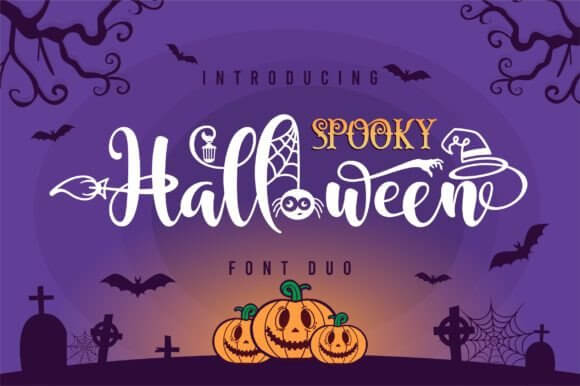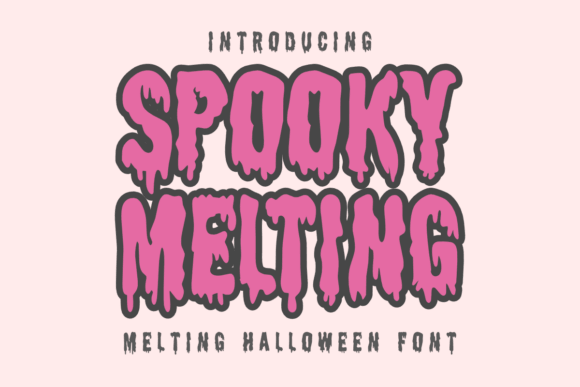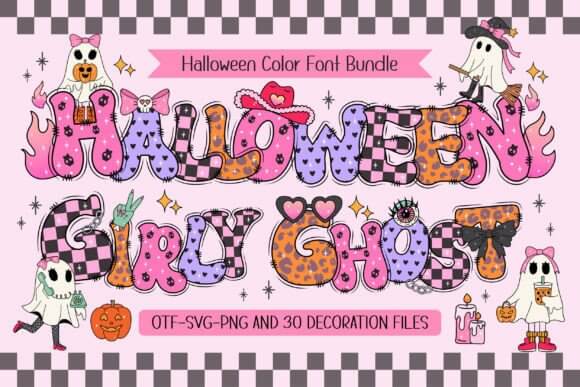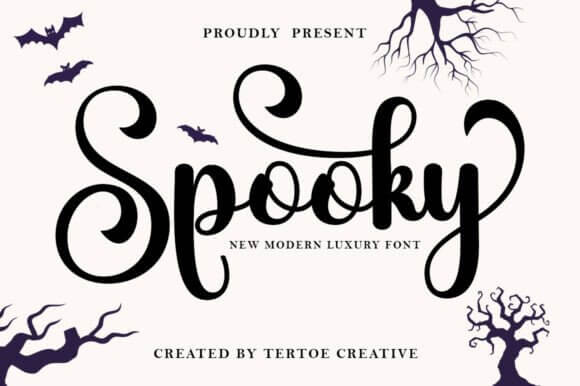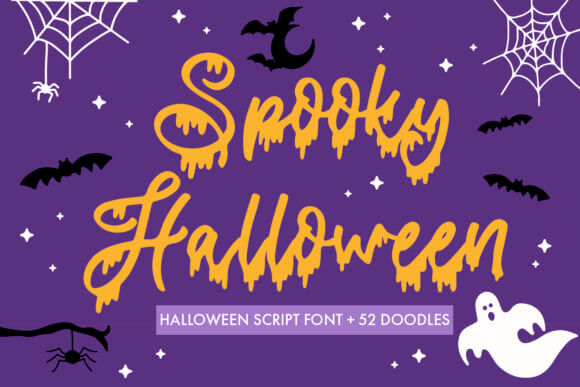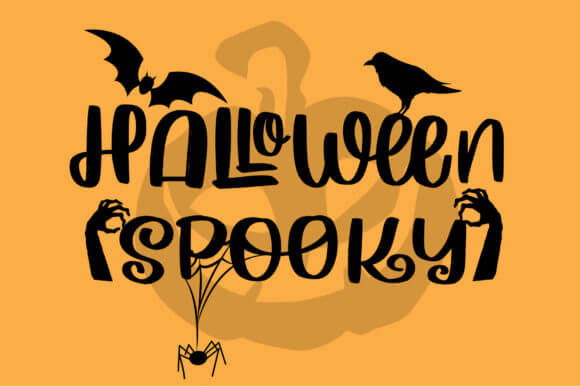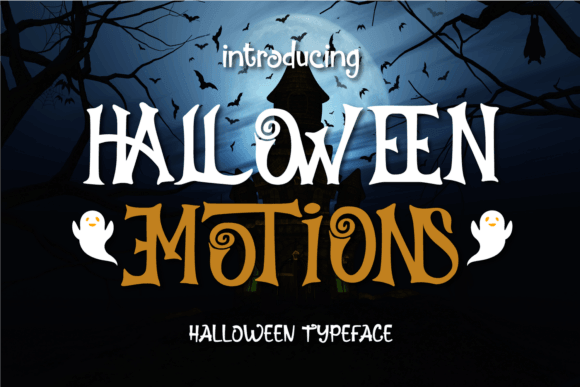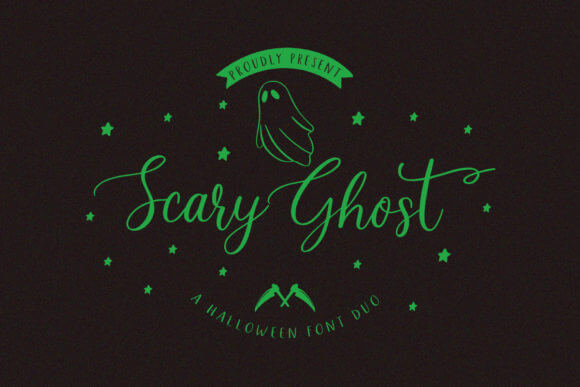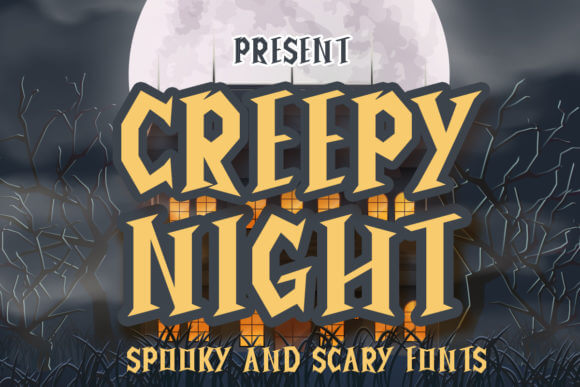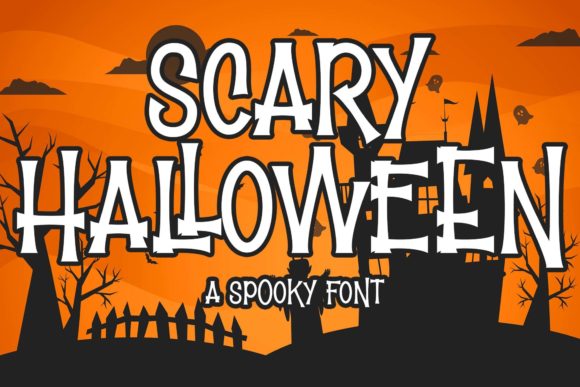
Halloween Spooky Witch Font Display Style
This one leans classic, witchy, and loud enough for signs that need instant October energy. We like its jagged silhouette for spooky witch font moments on treat tags, shirt decals, and home party boards. We would skip tiny captions, though. It shines when you let it hog the headline.
Best Projects For This Font
- Party Invites – Give the headline instant October attitude.
- Porch Signs – Make welcome boards feel witchy fast.
- Shirt Decals – Keep Cricut cuts bold and clear.
- Treat Tags – Add character without extra artwork.
Spooky Melting Drip Font For Horror Titles
Spooky Melting goes straight for the drip effect, and yeah, it knows exactly what it is. Use it when you want melting horror text on poster headers, haunted house promos, or video covers that need a gross little kick. Keep the rest of the layout clean or this thing will eat the whole page.
Where This Look Works Best
- Poster Headers – Push the dripping effect upfront.
- Haunted House Ads – Sell the scare in one glance.
- Video Covers – Add gross, fun energy to thumbnails.
- Menu Specials – Dress up themed food promos.
Halloween Girly Ghost Cute Script Font
Halloween Girly Ghost mixes cute with creepy, which sounds odd until you see it on pink, lilac, or cream backgrounds. We like it for cute ghost lettering on stickers, planner pages, cupcake toppers, and kids’ party packs. Sweet, but not bland.
Smart Uses For This Style
- Sticker Sheets – Keep the vibe cute and spooky.
- Planner Covers – Add playful seasonal charm.
- Cupcake Toppers – Make dessert tables feel styled.
- Kids Invites – Stay sweet, not scary.
Spooky Handwritten Font For Playful Scares
Spooky feels loose and hand-drawn, like you scribbled it during a late-night craft binge and somehow nailed it. That makes it perfect for playful spooky script on classroom decor, DIY labels, and cozy fall social posts. It stays friendly, not feral.
Best Projects For This Font
- Classroom Decor – Make headers feel handmade.
- DIY Labels – Dress jars and favors fast.
- Fall Reels – Add casual motion to text overlays.
- Greeting Cards – Keep the mood light.
Spooky Halloween Title Font For Posters
Spooky Halloween Title does the heavy lifting fast. If you need a big header for halloween title design, this one hits posters, flyer covers, and hero graphics without extra effects piled on top. Honestly, that saves time and keeps the page from turning into a tacky mess.
Where This Look Works Best
- Event Posters – Let the title do the work.
- Sale Banners – Boost seasonal shop promos.
- Story Covers – Create a strong first frame.
- Window Flyers – Stay readable from a distance.
Halloween Spooky Font With Retro Bite
Halloween Spooky brings a retro pulse that feels a little campy, a little haunted, and weirdly fresh. We would use this retro october font on mug wraps, thrift-style tees, and throwback party art where modern sans fonts feel dead inside. It has charm. Real charm.
Smart Uses For This Style
- Mug Wraps – Nail a thrifted retro feel.
- Vintage Tees – Add throwback Halloween attitude.
- Party Backdrops – Fill space without looking flat.
- Seasonal Logos – Make promos feel less generic.
Halloween Emotions Font For Quirky Crafts
Halloween Emotions looks animated and expressive, so it works when the design wants personality first and polish second. We love it for quirky halloween quotes, scrapbook titles, handmade cards, and fun classroom printables. It does not whisper. Good.
Best Projects For This Font
- Quote Prints – Turn one-liners into decor.
- Scrapbook Titles – Add movement to memory pages.
- Class Printables – Keep lessons fun and festive.
- Gift Notes – Add a little weird charm.
Scary Ghost Font With Soft Creepy Curves
Scary Ghost keeps the spooky vibe but softens the edges, which helps if you hate fonts that scream too hard. Try it on ghost party decals, favor bags, printable games, and cute shop promos that still need readable curves. Easy win.